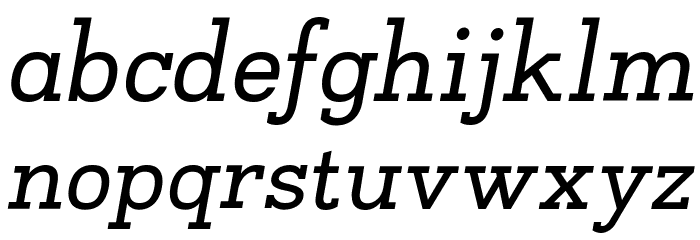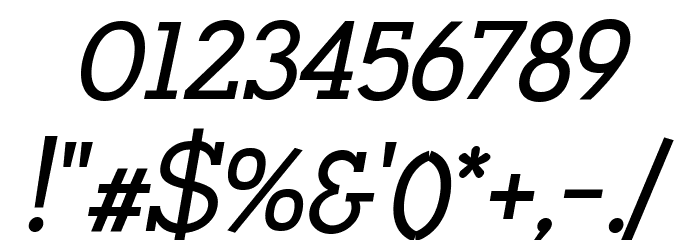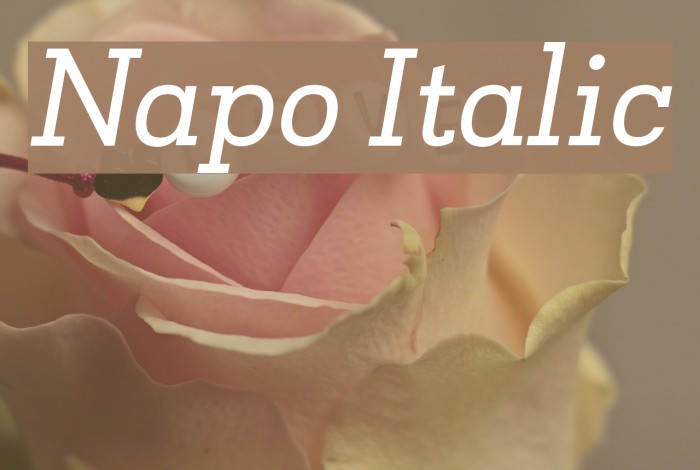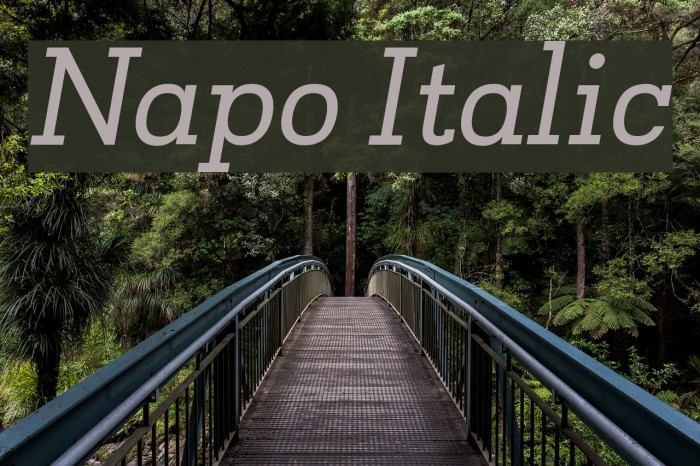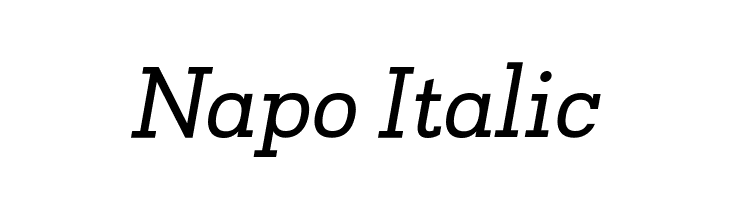
Napo Italic Font
This font features a classic italic style with a slight slant, giving it an elegant and sophisticated appearance. The characters are well-defined with moderate contrast between thick and thin strokes, enhancing readability while maintaining a stylish flair. The uppercase letters are bold and commanding, while the lowercase letters offer a smooth and flowing look. The numerals are clear and consistent, matching the overall aesthetic of the alphabet. Special characters are distinct and well-integrated, ensuring versatility in various design contexts. This font is suitable for projects that require a touch of elegance and formality.
An elegant italic font with moderate contrast and a classic style.
- Overall Style: Classic